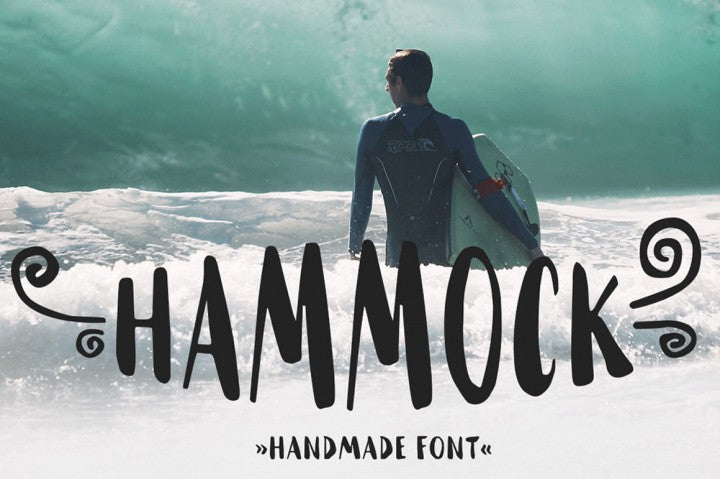
Free Hammock Font
Introducing you to the absolutely beautiful free hammock font. This is a downloadable typeface file brought to you by The Hungry JPEG. You can create a professional designs with this fancy font.